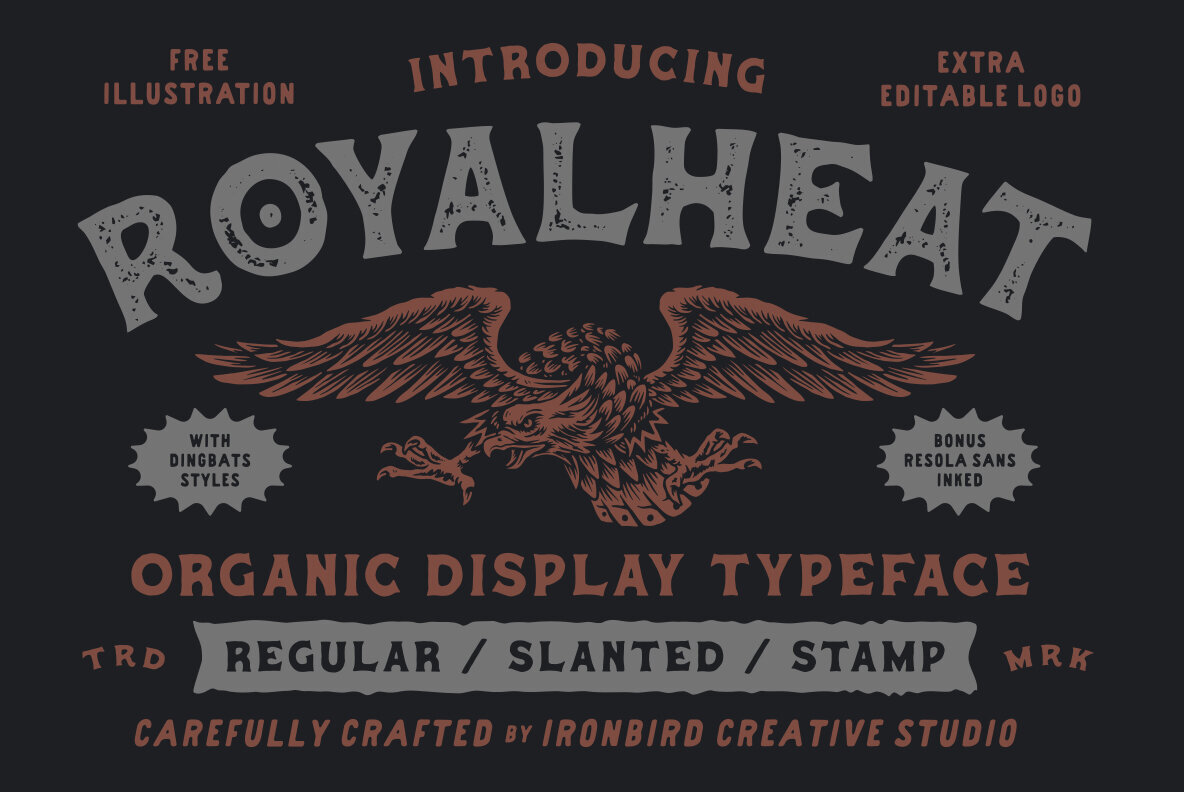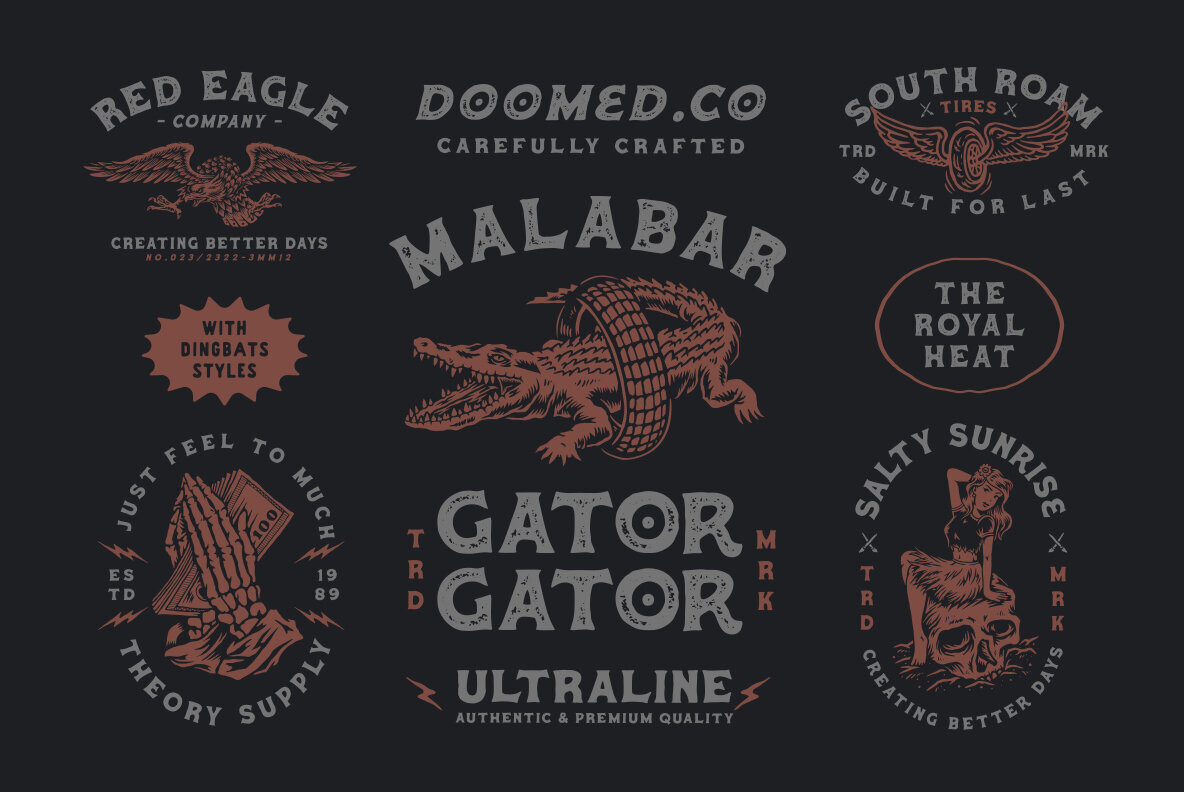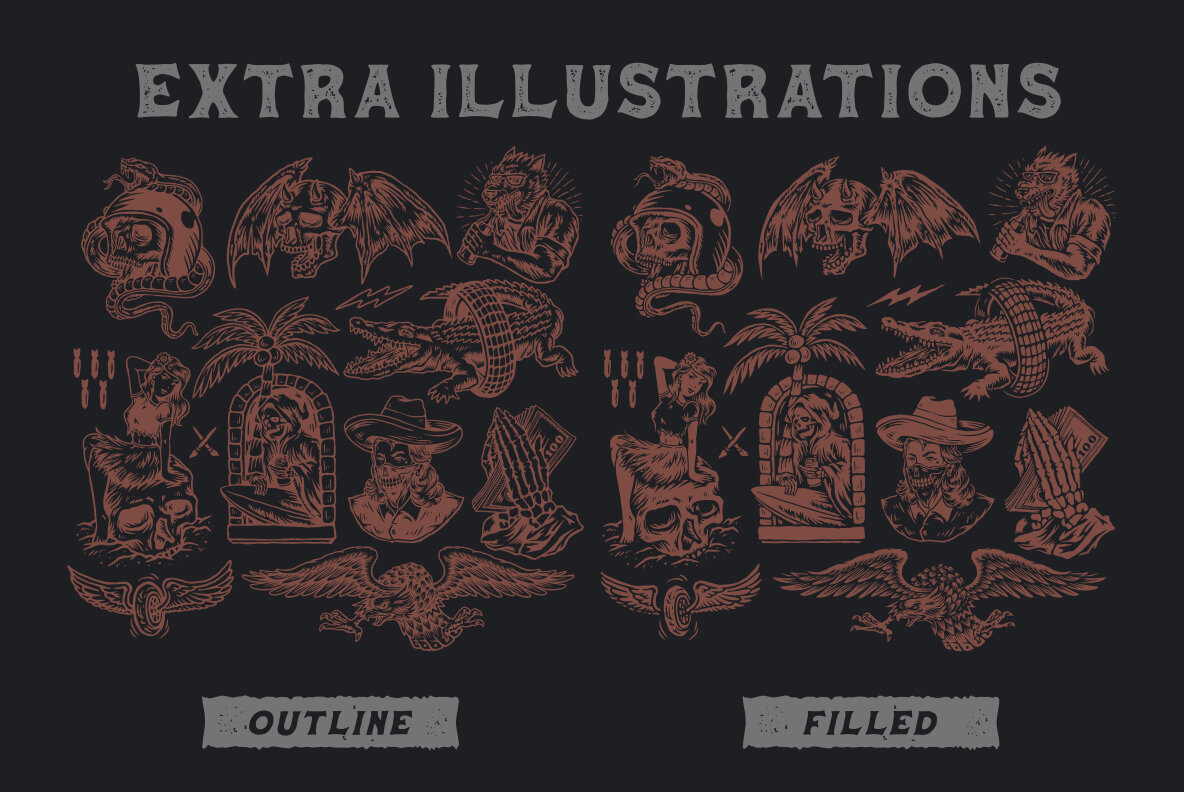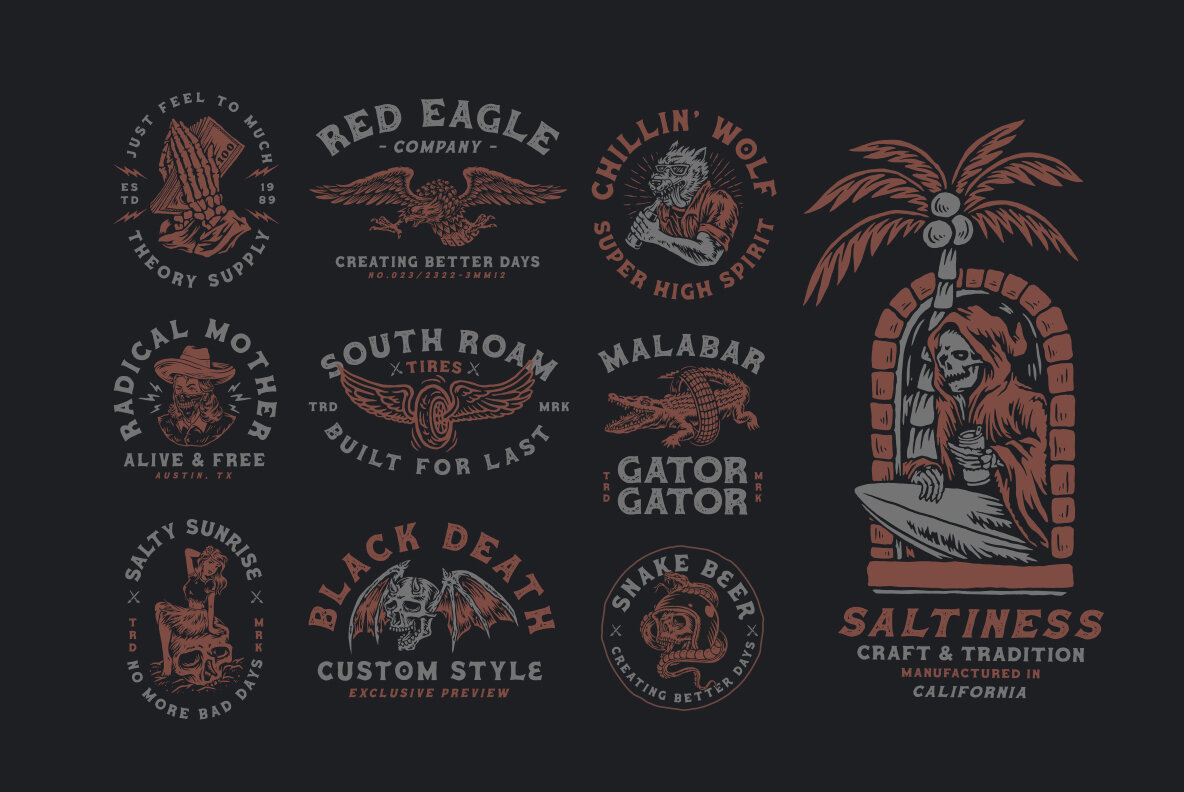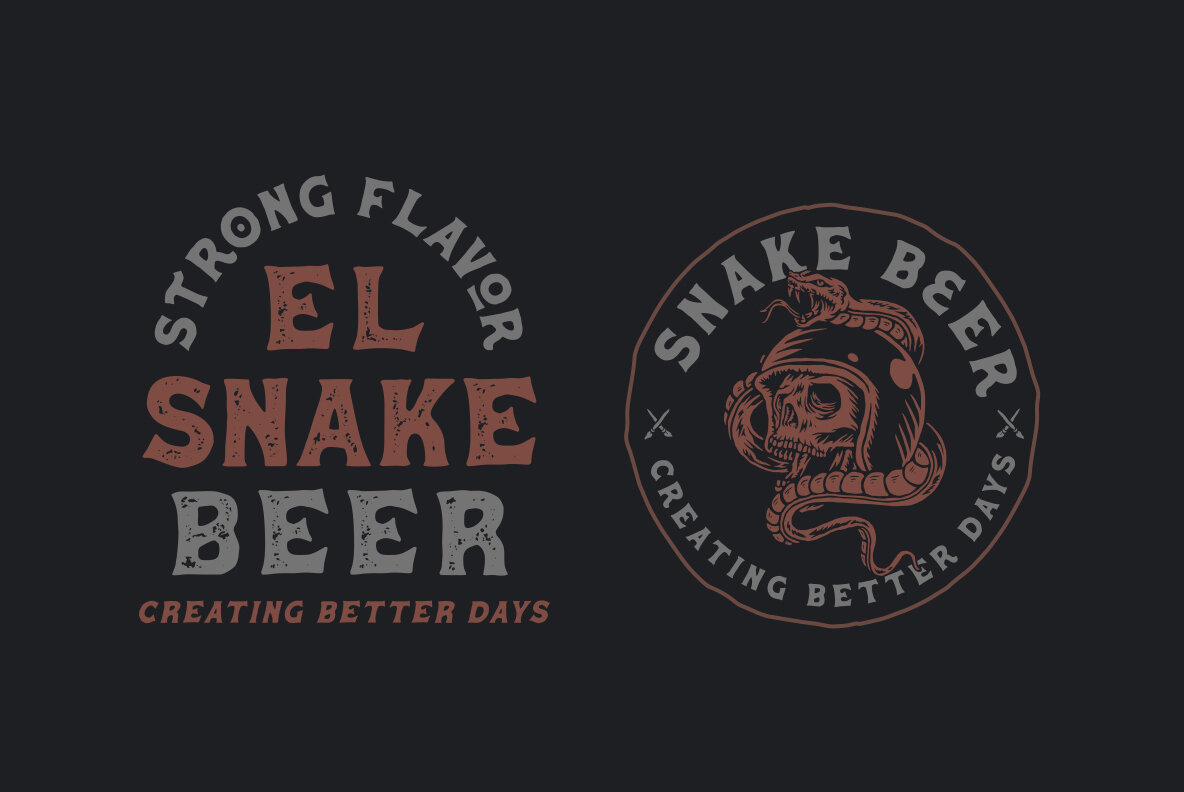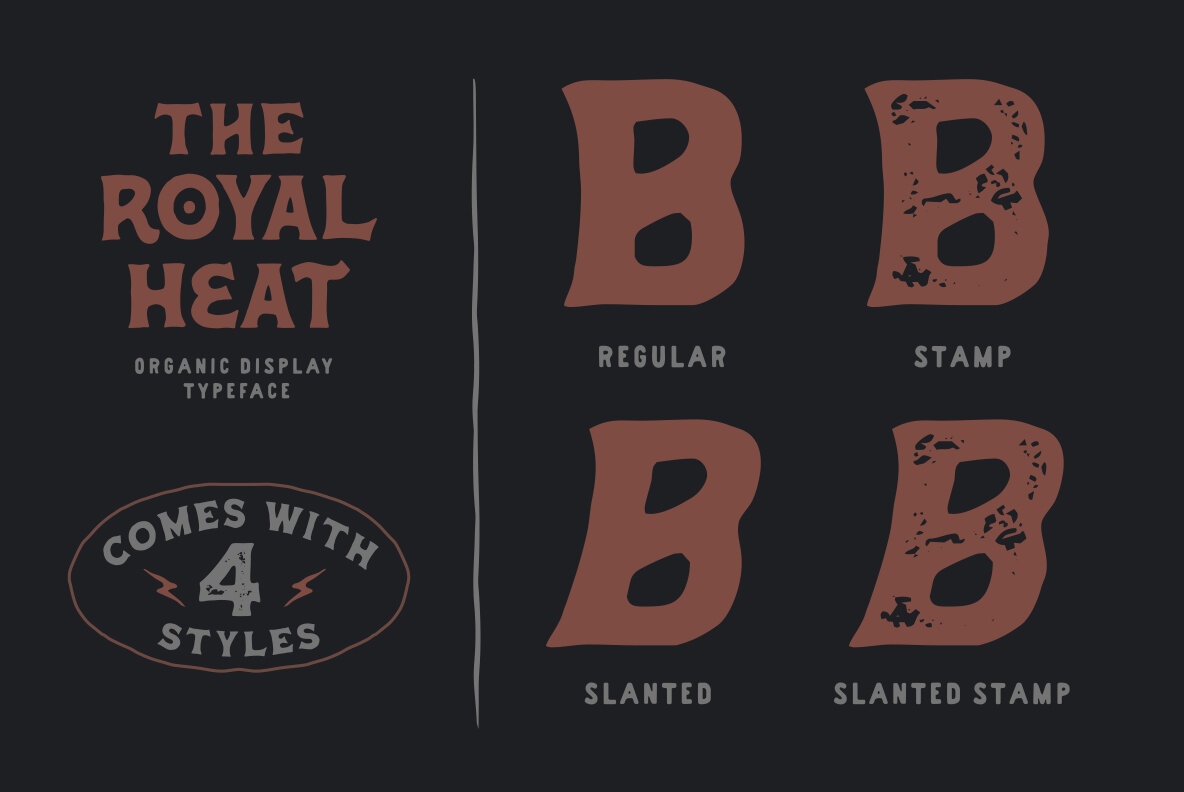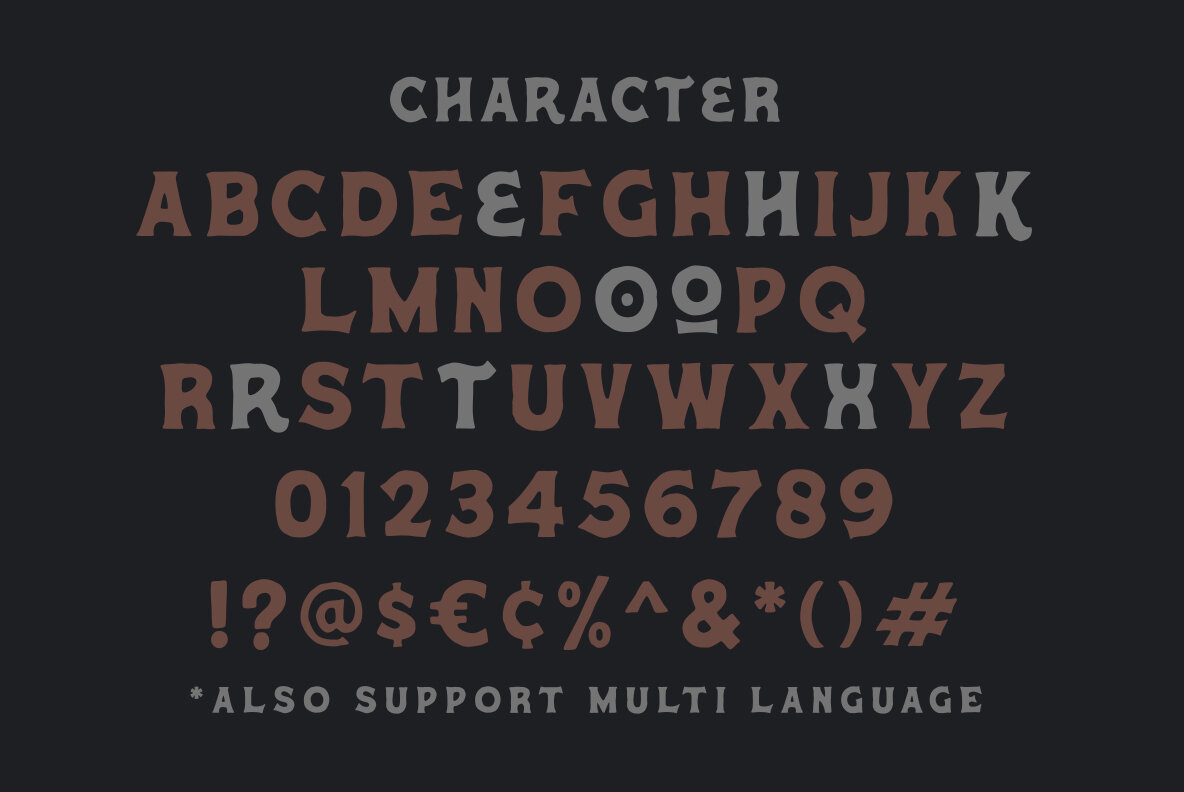
Royalheat Font
The Royalheat Regular
The Royalheat Dingbats
The Royalheat Slanted
The Royalheat Stamp
The Royalheat Stamp Slanted
Royalheat is an organic display typeface that draws on the rich tradition of vintage lettering combined with a hand-drawn sensibility. Each character features subtle irregularities, lending a distinct personality well suited to creative projects aiming for an authentic, crafted aesthetic. The font includes a variety of styles, expanding its flexibility for different design applications. Royalheat offers a vintage look for projects seeking an organic touch. Its multiple styles and added assets provide designers with tools to build cohesive, memorable visuals across digital and print mediums.Royalheat: Organic Display Typeface With Vintage Character